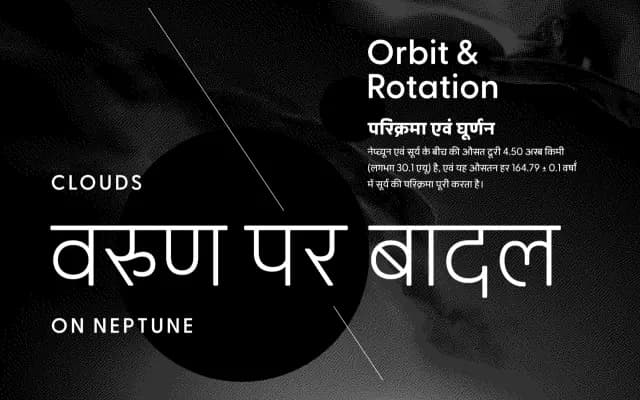
Greycliff Devanagari
A geometric monolinear sans serif extending the Greycliff family into Devanagari script for cohesive Latin and Indic multilingual typesetting.
Adapted directly from the original Greycliff typeface, this Devanagari companion preserves the geometric, monolinear character of the Latin across nine weights from Thin to Heavy. Script coverage spans Hindi, Marathi, Nepali and Sanskrit alongside broad Latin extended support for over two dozen languages. There are no italics or condensed cuts, keeping the family tightly focused on multilingual body and UI applications.
A geometric, monolinear sans serif adapted from the original Greycliff Latin family into Devanagari script, maintaining the same monolinear, geometric character across both scripts.